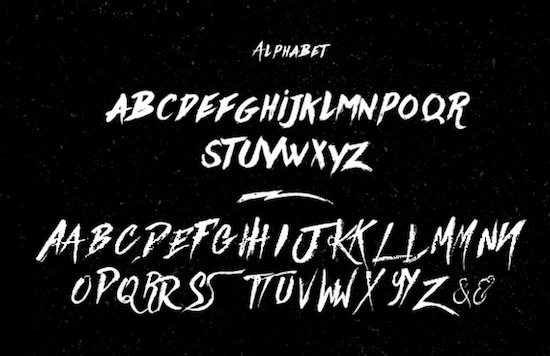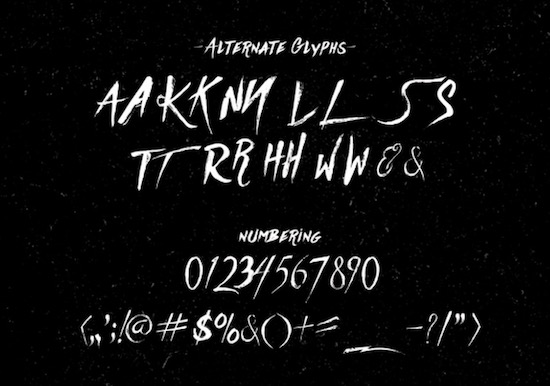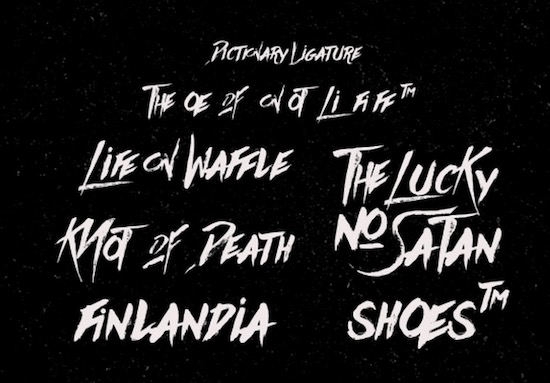
Bad Bunny Logo Font
Now we will learn more information about the Bad Bunny logo, the commonly used logo of the Puerto Rico rapper. Why is it called Bad Bunny, when this is not his real name? Starting from his childhood days, his family gave him bunny ears to prevent him from getting lost, and since then his childhood memories are attached to bunny ears. When he entered the musical path, he took the nickname Bad Bunny.
Bad Bunny is a rapper who is dominating the music wave in the world, and that’s why his influence is growing across all fields, especially in the entertainment industry. The Bad Bunny logo became the focus of interest in many industries that were in need of this artist’s influence. Therefore, the image of Bad Bunny appears on promotional tools, product introductions, and covers of major magazines. Marketing channels also rely on that popularity to follow the typeface of the Bad Bunny logo.
Now we will learn more information about the Bad Bunny logo, the commonly used logo of the Puerto Rico rapper. Why is it called Bad Bunny, when this is not his real name? Starting from his childhood days, his family gave him bunny ears to prevent him from getting lost, and since then his childhood memories are attached to bunny ears. When he entered the musical path, he took the nickname Bad Bunny.
Bad Bunny is a rapper who is dominating the music wave in the world, and that’s why his influence is growing across all fields, especially in the entertainment industry. The Bad Bunny logo became the focus of interest in many industries that were in need of this artist’s influence. Example Bad Bunny merch, Bad Bunny hoodie, or Bad Bunny shirts. It’s a great inspiration for Bad Bunny cartoons, as well as Bad Bunny gifts for everyone.
Therefore, the image of Bad Bunny appears on promotional tools, product introductions, and covers of major magazines. Marketing channels also rely on that popularity to follow the font of the Bad Bunny logo.
Bad Bunny font will certainly receive the great attention of designers around the world. To design the Bad Bunny logo, we can think of an extremely close font, which is The Againts Font from designer Fortunes Co. It can be noticed that the small details on each stroke are very similar to the font used to create the legendary Bad Bunny logo, a regular Brush font but with nuances of exclusive display style and personality but very versatile.
Using this Bad Bunny font
Bad Bunny font is created with a real brush pen by a hugely talented designer. It gives your design the dry brush effect along with a natural look of a beautiful hand-lettering brush feel. Bad Bunny font can be well used for various graphic and design purposes such as wedding invitations, letterheads, labels, logos, t-shirts, and so on.
Bad Bunny Display font